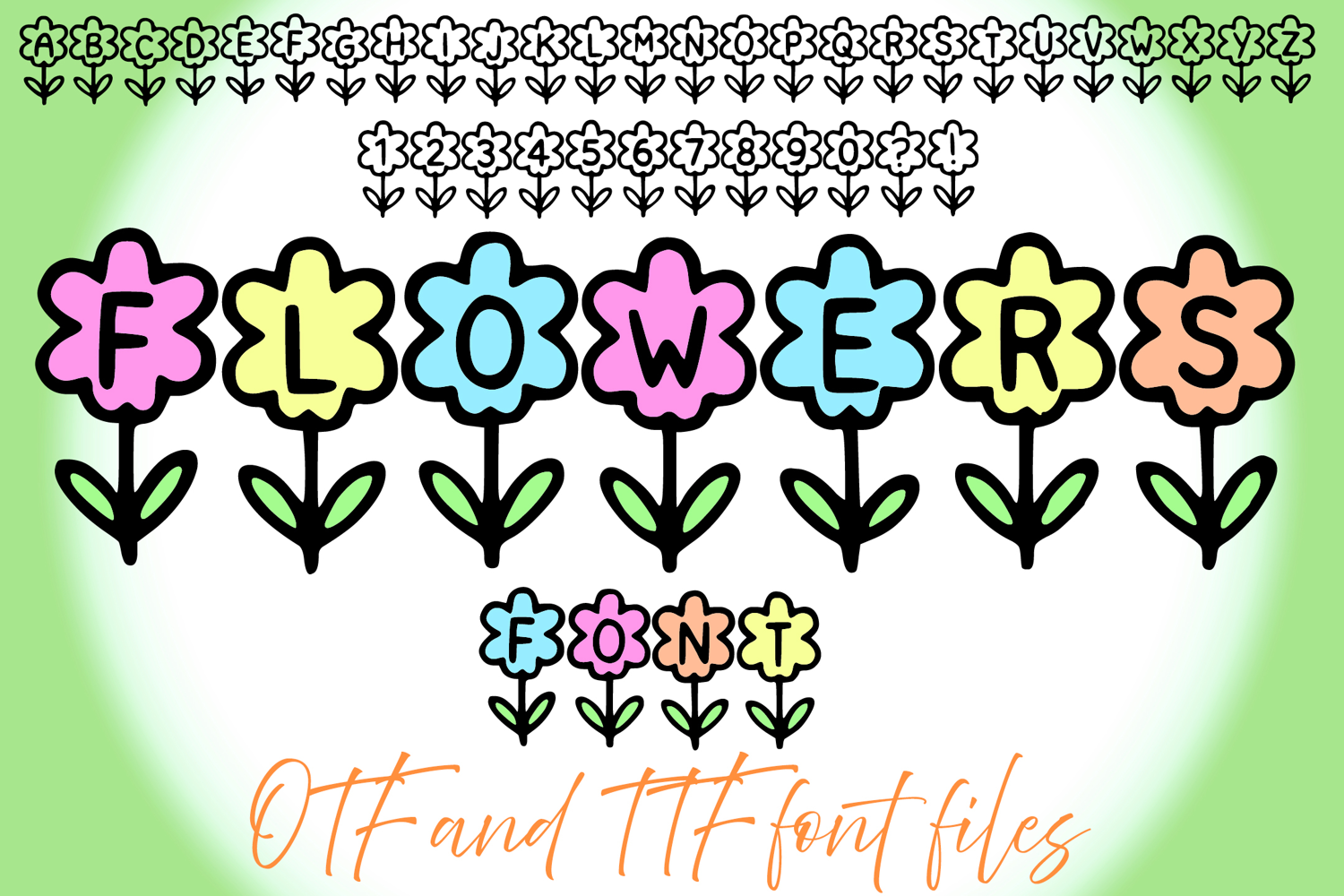
Flowers Simple Alphabet Lettering ABC Text Font Floral Typeface OTF Illustration
A cartoon style font where you can create your own words and colour them to your vision!